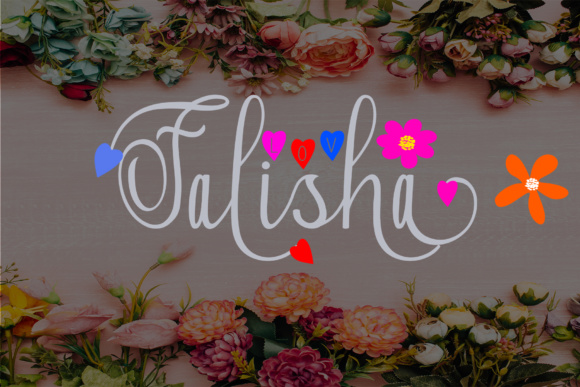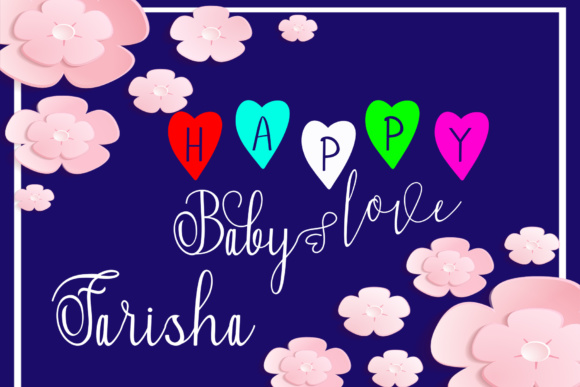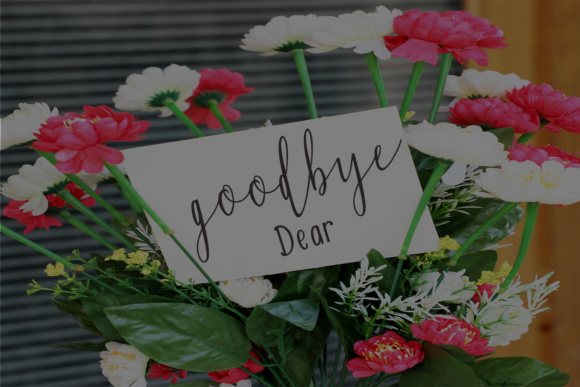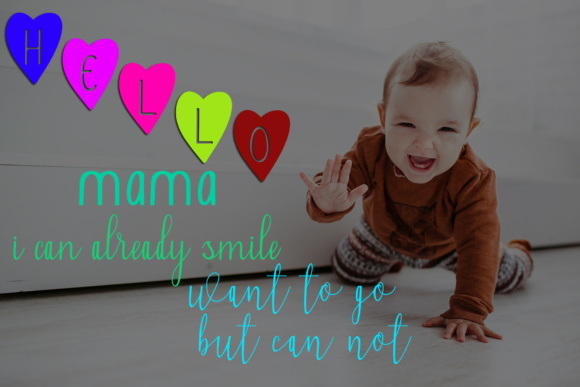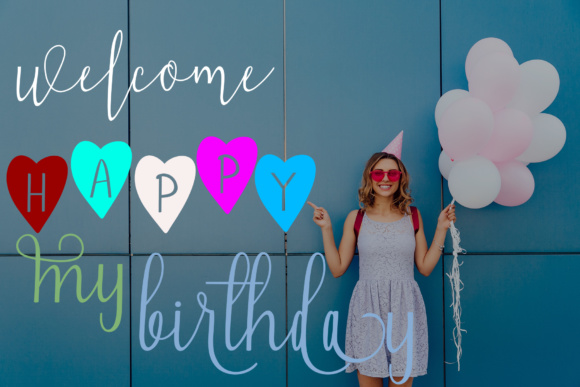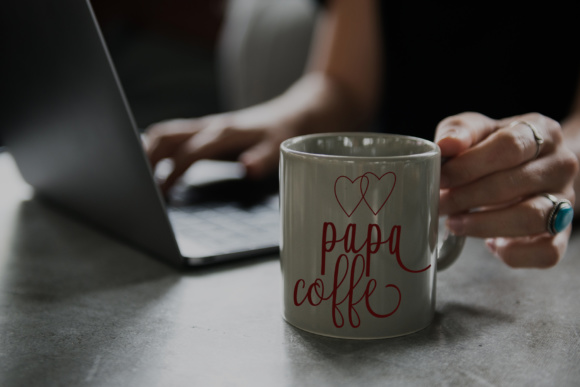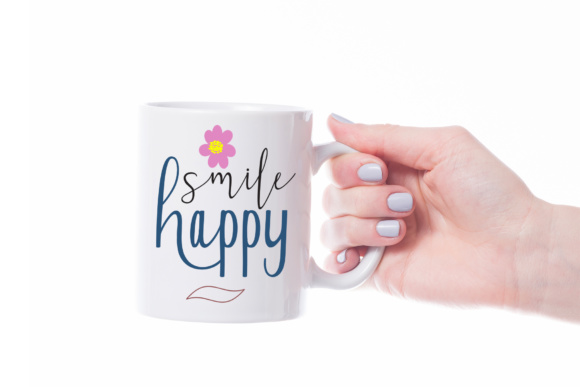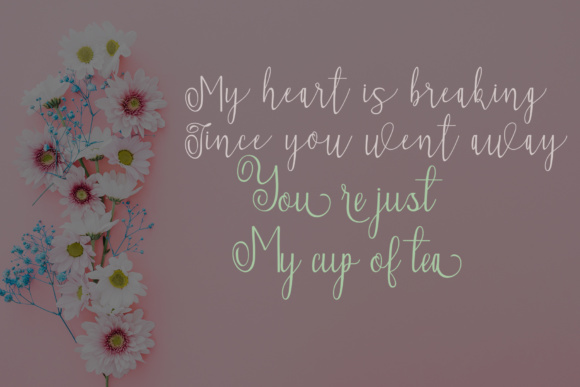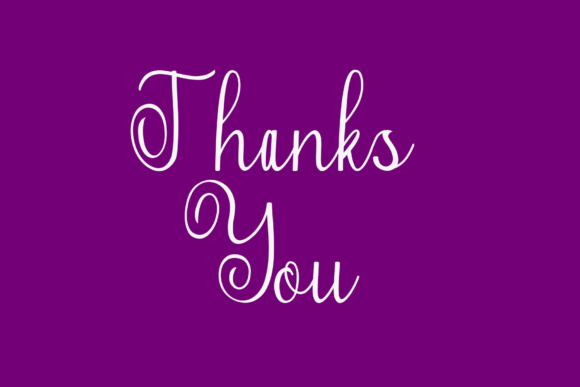
Falisha Font
About Falisha Font
Falisha is a modern looking calligraphy script. It’s designed by hand, and digitally perfected to create a unique, modern design.